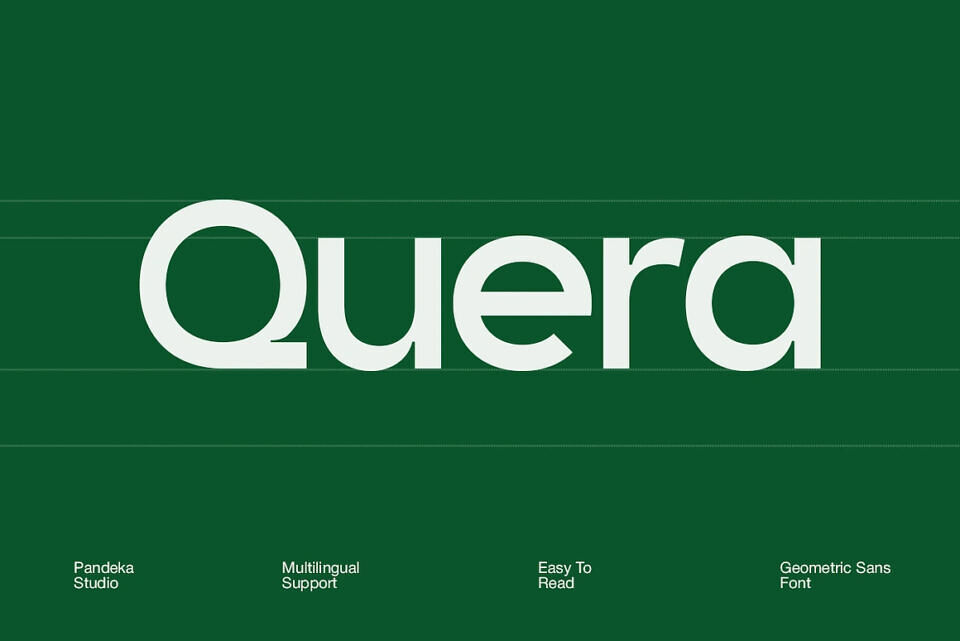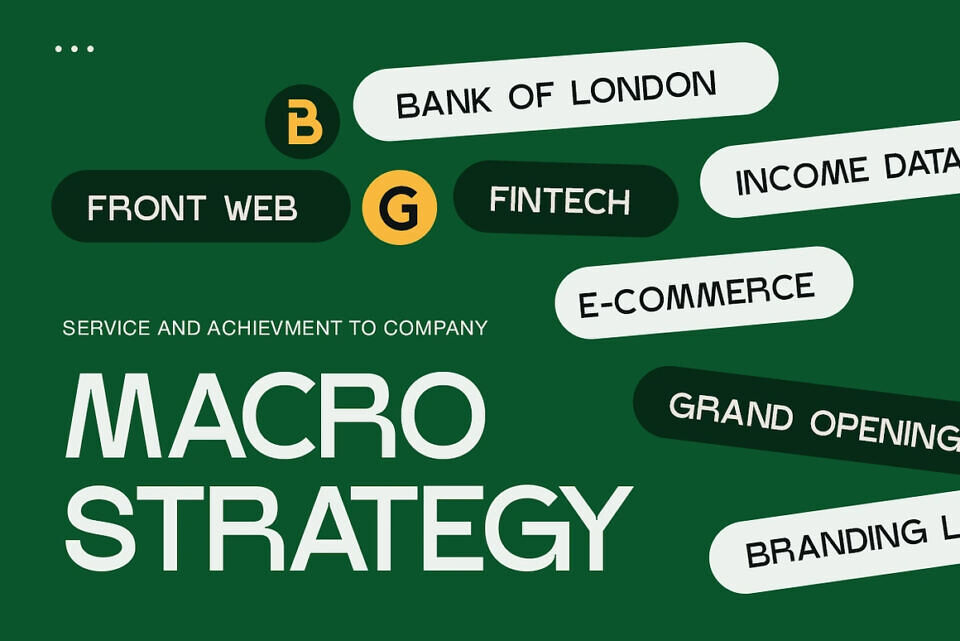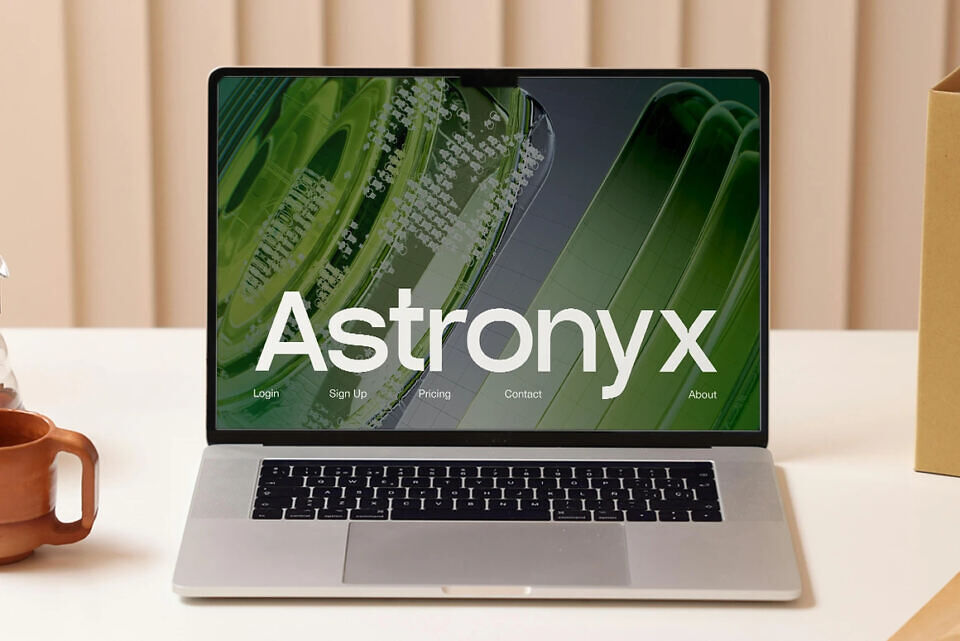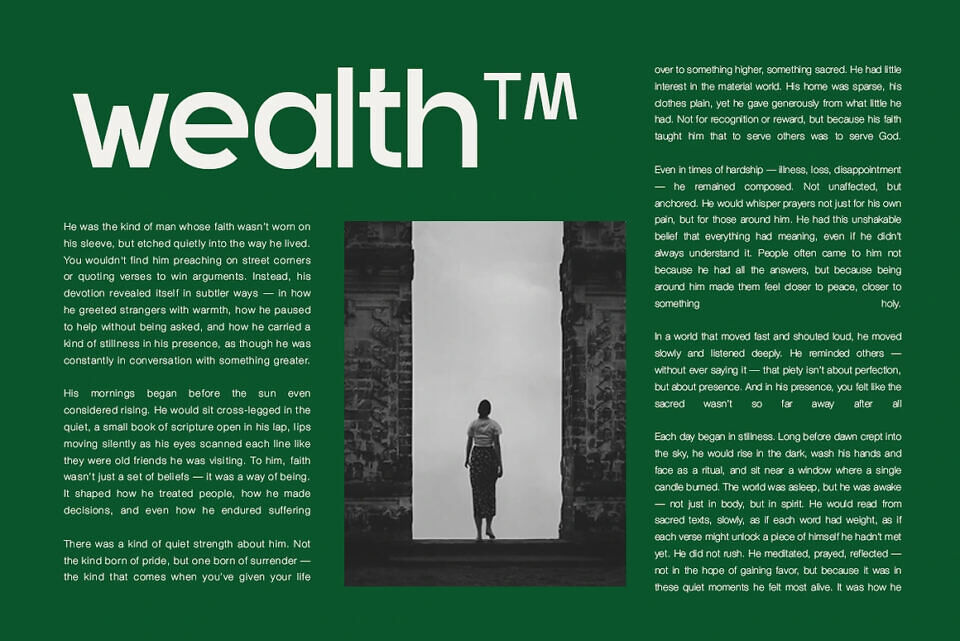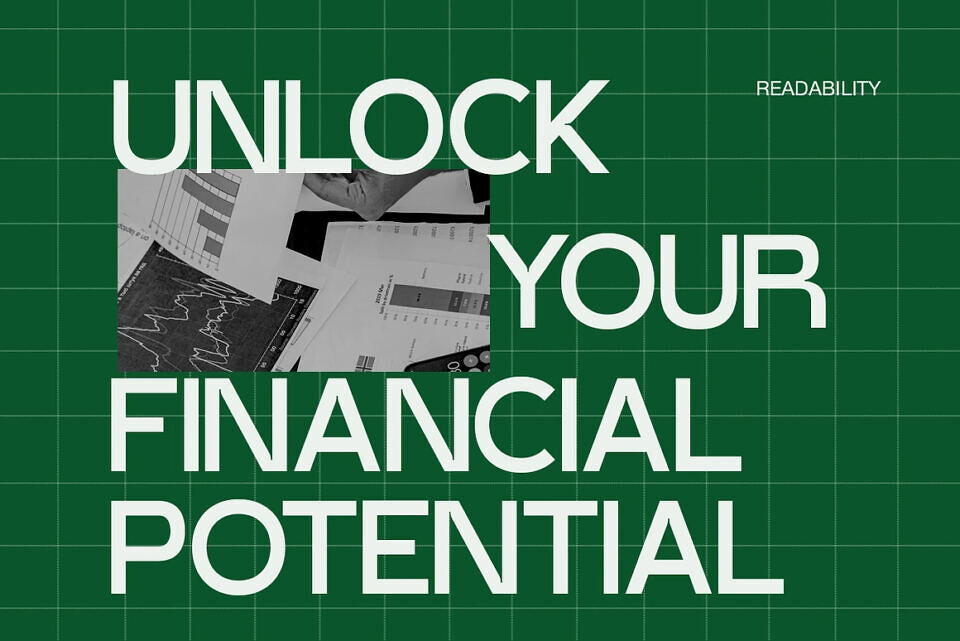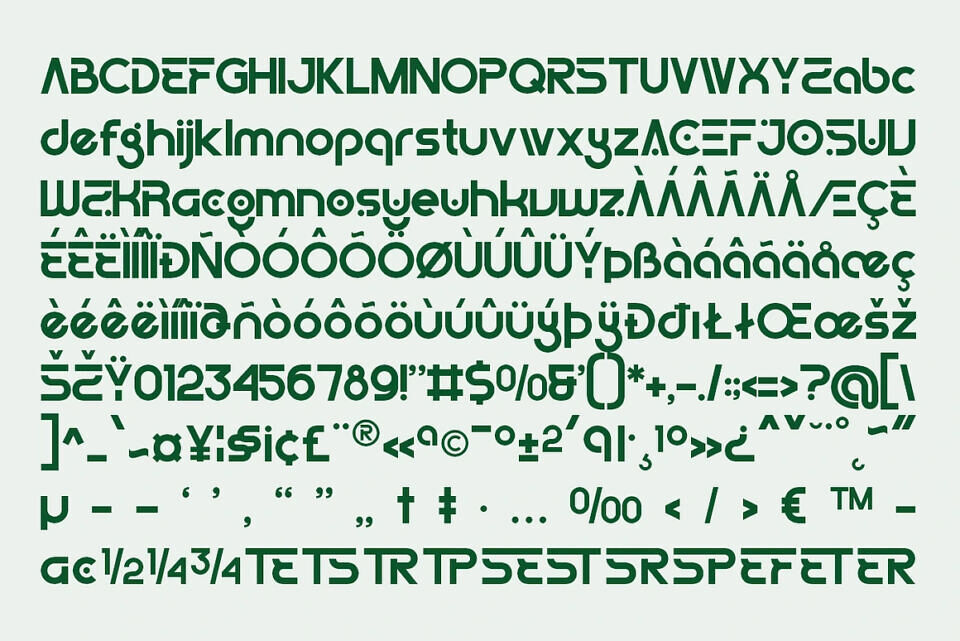
Quera is a contemporary geometric sans-serif typeface crafted to embody professionalism, clarity, and a strong corporate presence. Defined by its clean lines, harmonious proportions, and modern aesthetics, Quera is an excellent choice for branding projects, business presentations, editorial layouts, websites, and digital platforms that require a refined and trustworthy visual identity.
Offered in a single Regular weight, Quera provides impressive versatility and outstanding readability, making it suitable for headlines, body text, and user interfaces. The font includes a full set of uppercase and lowercase characters, numerals, punctuation, symbols, and extensive multilingual support—ensuring effortless adaptability for global communication while preserving its sleek, modern appeal.